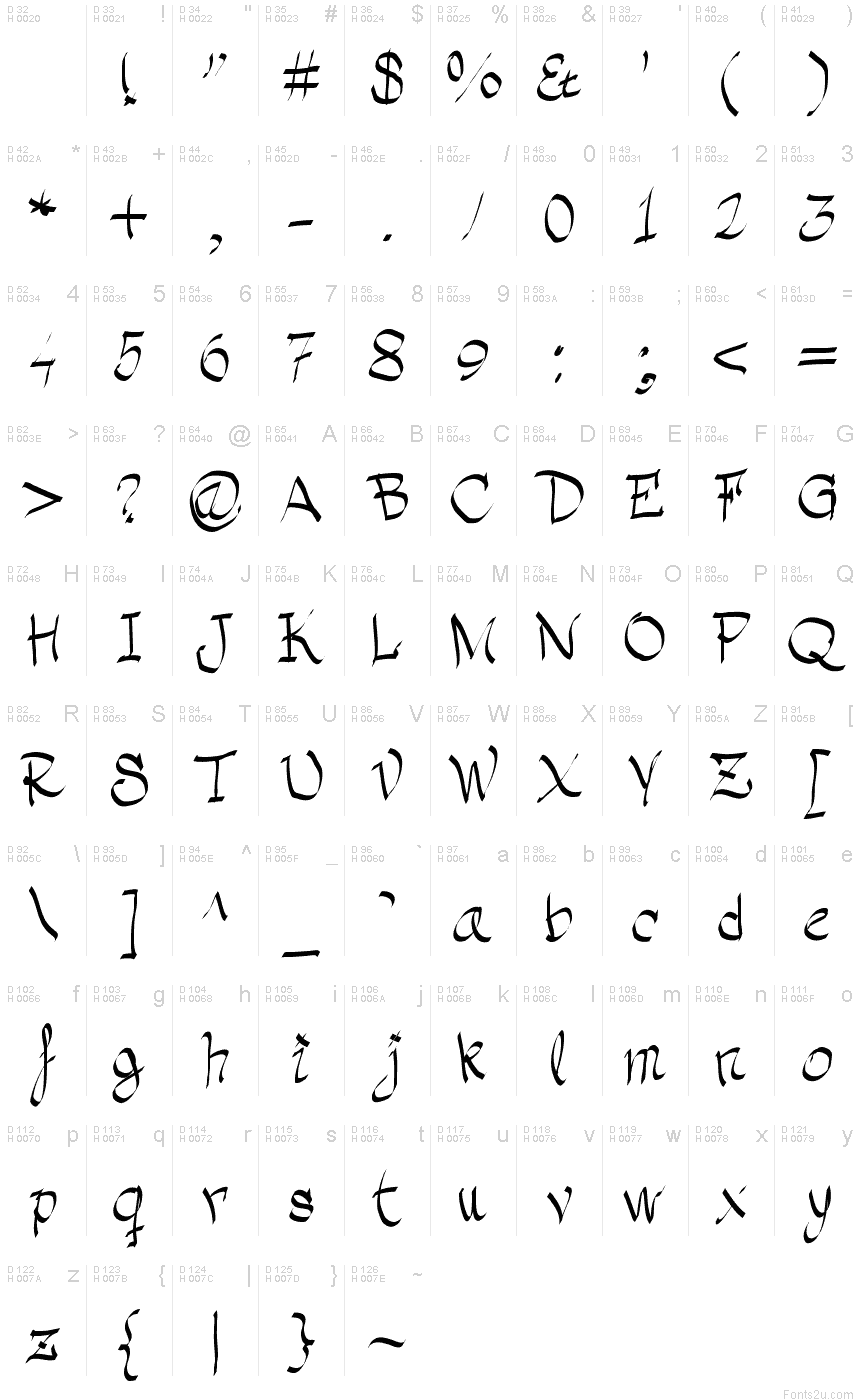
Grafia
Grafia font by Lagalga is a free handwritten font that feels like fast, inky calligraphy caught mid-splash. Thick, brushy strokes collide with hairline swirls, giving every word a sense of motion and drama, while the long, tilted forms add a touch of theatrical flair. It’s expressive without feeling messy, so it holds up both in tight headlines and larger, sweeping titles.
Using Grafia, you can give logos, posters, book covers, album art, product packaging, invitations, and bold social graphics a vivid, hand-crafted signature. This free font shines when set large and generously spaced, letting those striking curves breathe; pair it with a clean geometric sans for body copy to keep the spotlight on Grafia’s energetic script.